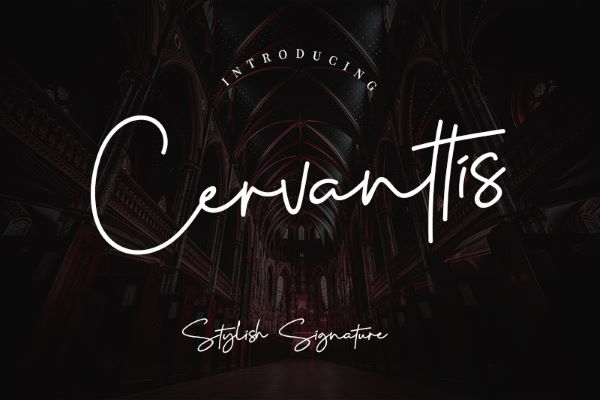
Cervanttis Font
Cervanttis Font is an elegant script typeface created by Creatype Studio, designed to mimic the smooth and natural flow of handwriting. It features graceful strokes and expressive letterforms, making it ideal for invitations, branding, logos, packaging, and decorative typography. Its refined charm and fluid style make it a beautiful and versatile option within stylish and artistic free fonts collections.
➤ Font Name: Cervanttis
➤ Designer: Creatype Studio
➤ Style: Handwritten